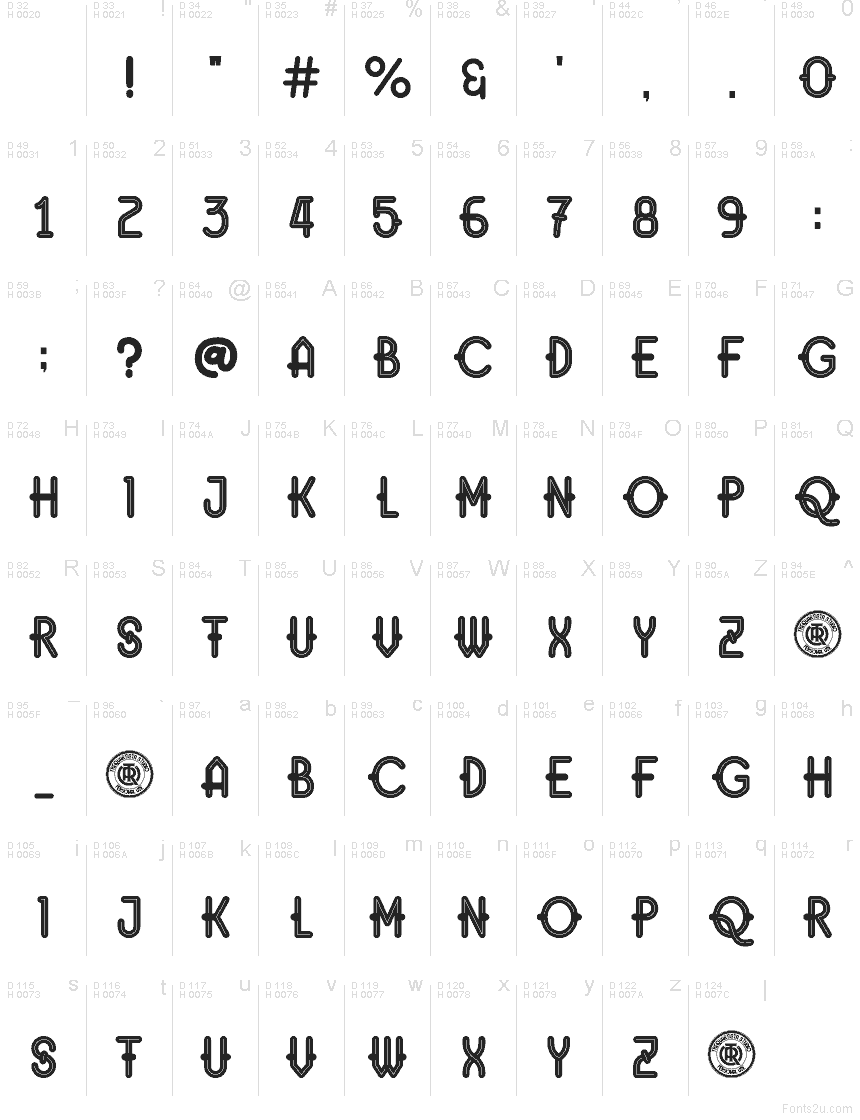
Tottenham 5 font by Trequartista Studio is a free techno display typeface. Part of the Tottenham family, it draws bold, tubular outlines that look like glowing neon bent into precise, rounded shapes. The doubled strokes and generous spacing give each letter a crisp, electric presence, as if the word itself is wired up and humming. It’s clean and futuristic without feeling cold, thanks to those soft corners and even rhythm across the line.
Using Tottenham 5, your text instantly reads as digital, urban, and high-energy. This free font works beautifully for esports and gaming logos, sci‑fi posters, music event flyers, tech branding, and bold YouTube or Twitch graphics. Set it large to let the outlined structure breathe, and pair it with a simple geometric sans serif for supporting text to keep the focus on Tottenham 5’s distinctive neon-frame personality.